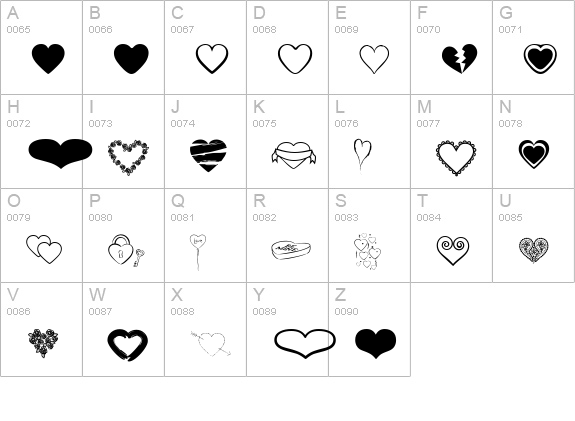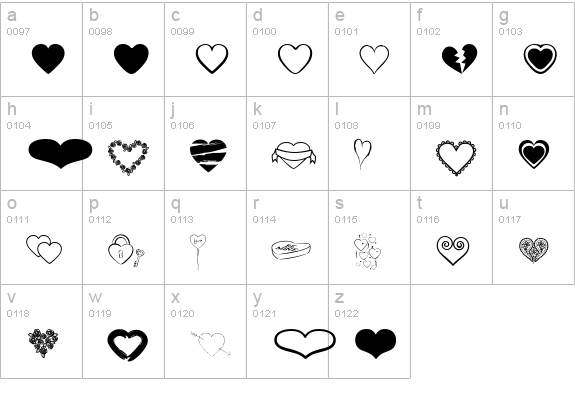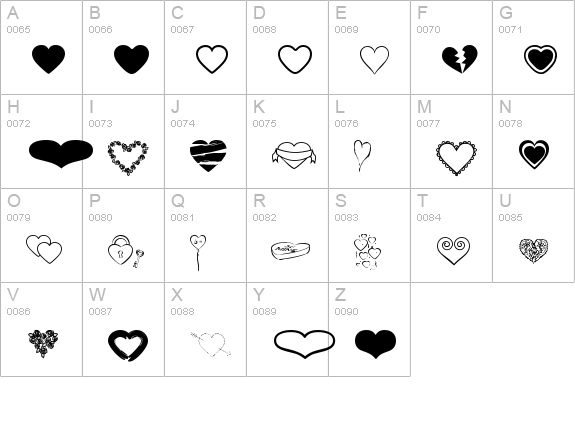
Hearts BV is a stunningly elegant font that effortlessly captures the essence of romance and sophistication. With its delicate curves and intricate details, this typeface is perfect for adding a touch of love and beauty to any design project. Whether you're creating wedding invitations, love letters, or heartfelt greeting cards, Hearts BV will enchant your audience with its timeless elegance. What makes Hearts BV even more remarkable is that it is available for free. Yes, you read that right - this exquisite font can be freely downloaded at FontsMarket.com. Now, you can create stunning designs without breaking the bank. With its wide range of characters and versatile style, Hearts BV offers endless possibilities for expressing your creativity and capturing hearts. Designed with utmost care and attention to detail, Hearts BV will add a touch of magic to your designs. Its flowing lines and graceful strokes create a harmonious balance that is pleasing to the eye. Whether you choose to use it for headlines, titles, or body text, this font will effortlessly elevate your designs and make them stand out. So why wait? Experience the beauty and charm of Hearts BV today by downloading it for free at FontsMarket.com. Unleash your creativity and let this enchanting font help you create designs that will captivate and inspire. Whether you're a professional designer or a passionate hobbyist, Hearts BV is the perfect companion for all your creative endeavors.